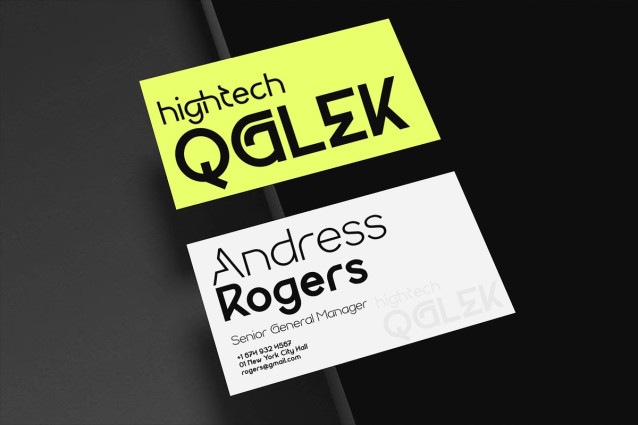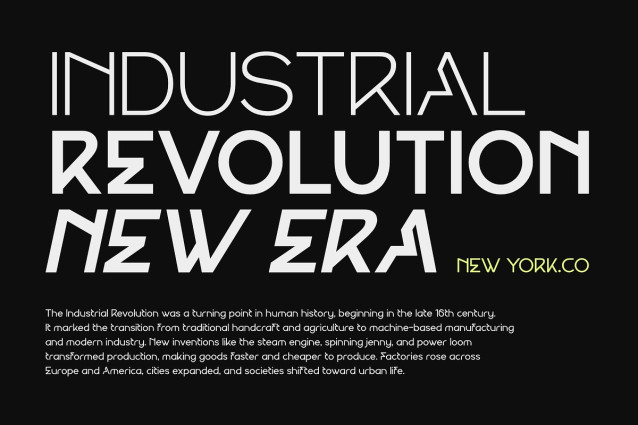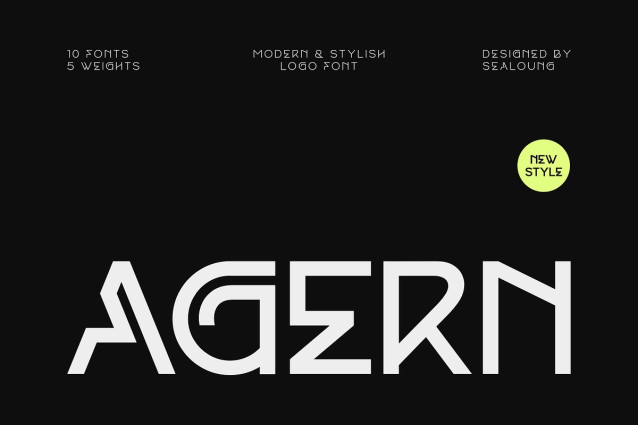
Agern Font Family
Agern Font Family is a refined sans-serif typeface created to elevate professional branding and corporate identity. With a complete range of weights from Thin to Bold, it blends sleek geometry with versatile usability, making it a perfect choice for logos, brand identities, and contemporary design projects.